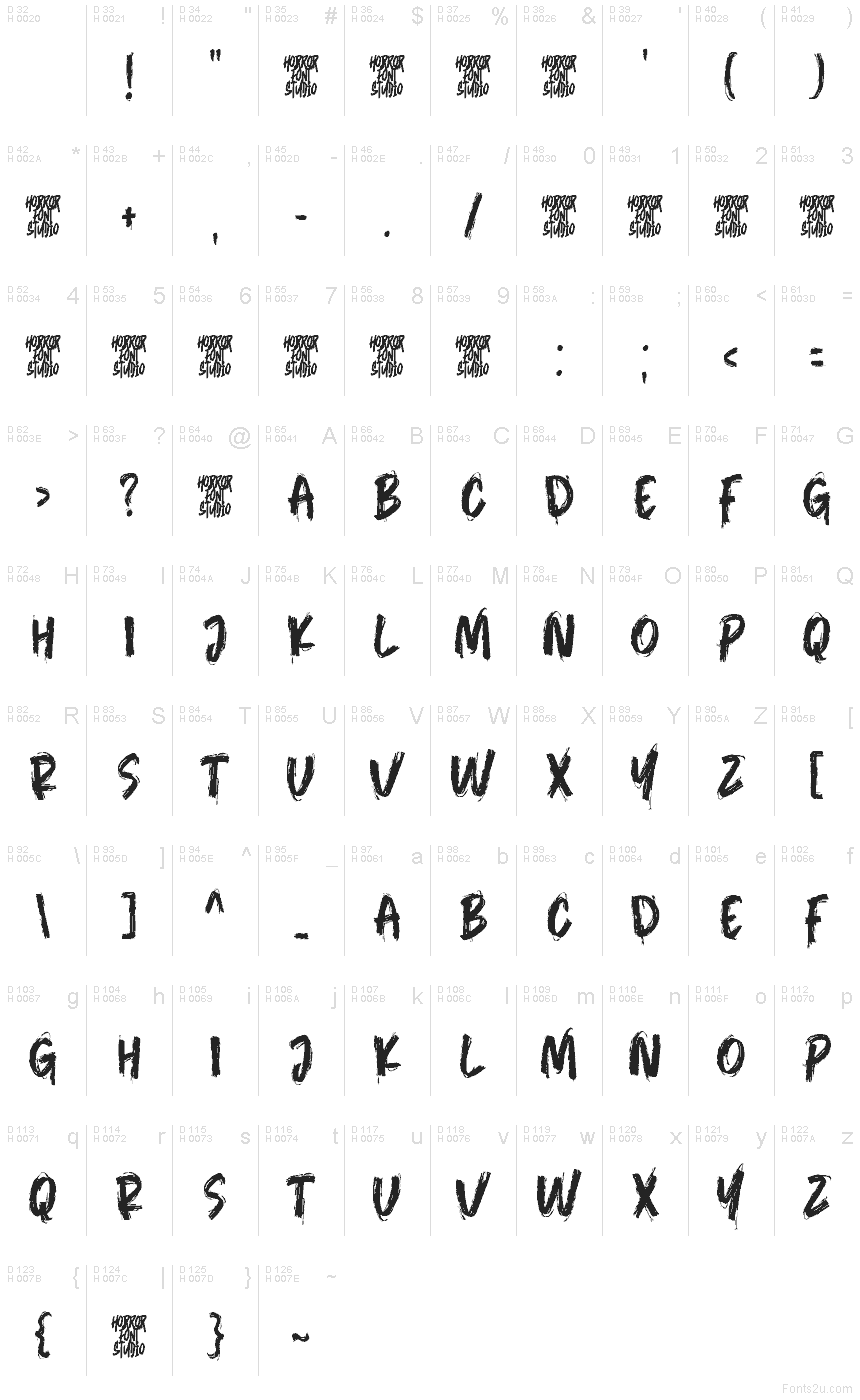
Chilling Nightime
Chilling Nightime font by Horror Font is a horror-themed font with an expressive, exaggerated visual style. Its prominent scary look features an overall edgy and grungy distressed texture. All aspects of it combine to create the ultimate spooky appearance which cannot be recreated by simply applying any texture or filter to fonts.
The free display typeface suits horror movie posters, short Halloween invitations, professional books of terrifying stories, eerie book covers, birthdays of lovers of spookiness, and not-so-serious ghost-like social media posts. The font also works for meme ideas, newsletter headers for creative writers and fans alike where it’s always usable more than once a season.